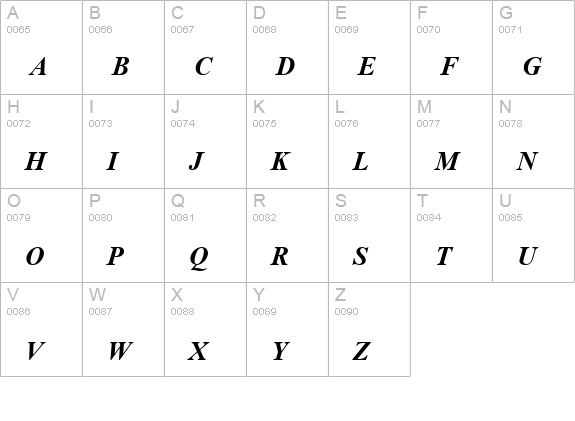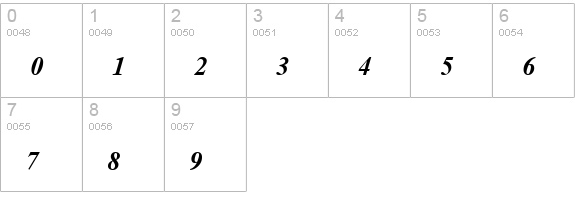
Angsana New Bold Italic Font Details
Angsana New Bold Italic is a strong, high-contrast, italic variant in the Angsana typeface family \xE2\x80\x94 well suited to headlines, attention-grabbing titles, and strong calls-to-action.
Angsana New Bold Italic font is a stunning and elegant typeface that exudes confidence and sophistication. With its bold yet graceful curves, this font is perfect for making a bold statement in your designs. The italic style adds a touch of flair and modernity to any project. The Angsana New Bold Italic font is versatile and can be used for a variety of design projects, from branding to editorial design. Its striking appearance is sure to capture attention and leave a lasting impression. Best of all, Angsana New Bold Italic font is available for free download at FontsMarket.com. Whether you're a professional designer or just looking to spruce up your personal projects, this font is a fantastic addition to your font library. Download it today and elevate your designs with the timeless beauty of Angsana New Bold Italic font.